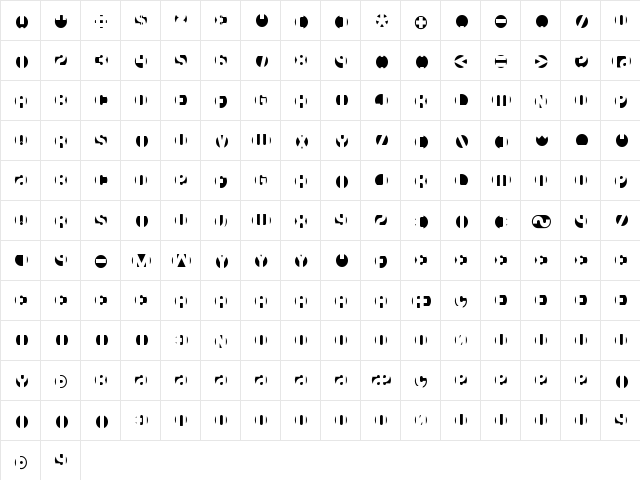
DB Layer 4 BRK Normal
Design Context for DB Layer 4 BRK Typeface
DB Layer 4 BRK is a composed and adaptable typeface that performs quietly and consistently across a wide range of design contexts.